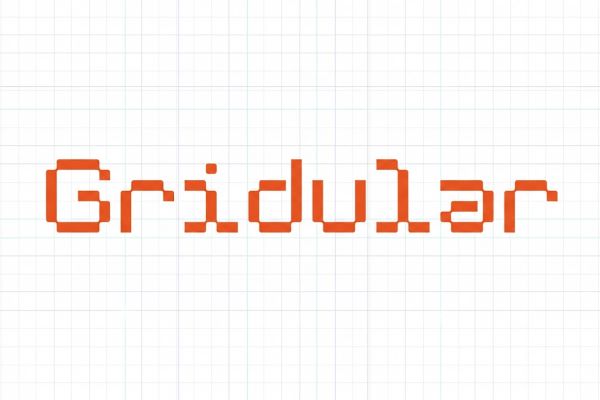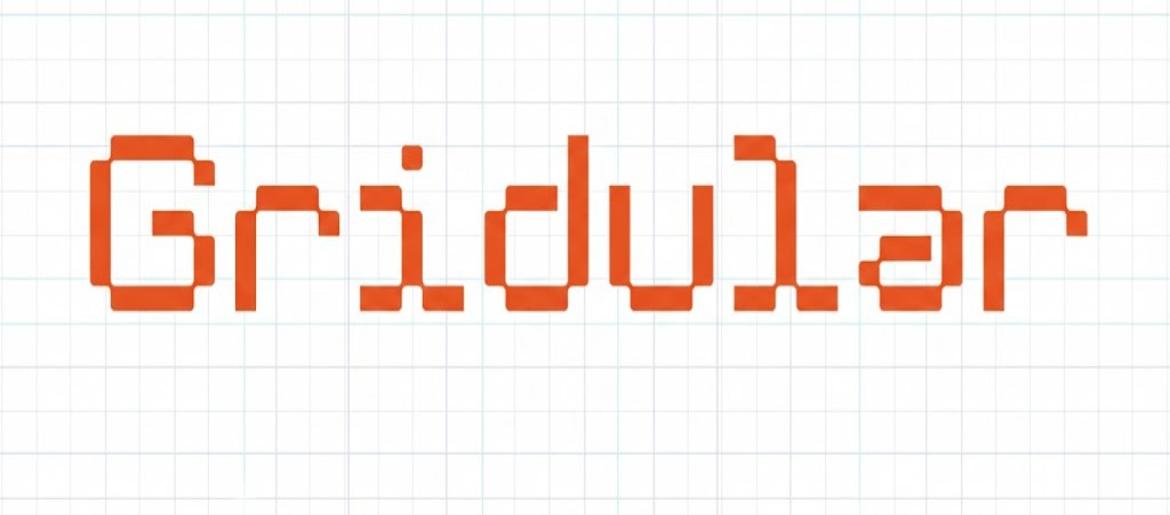
Gridular Font
Gridular Font is an experimental display typeface built around grid-based construction and geometric structure. It delivers a bold, futuristic appearance, making it ideal for posters, branding, headlines, and conceptual typography. Its unique visual rhythm and structured design create strong impact, helping it stand out as an innovative and artistic choice within modern and experimental free fonts collections.